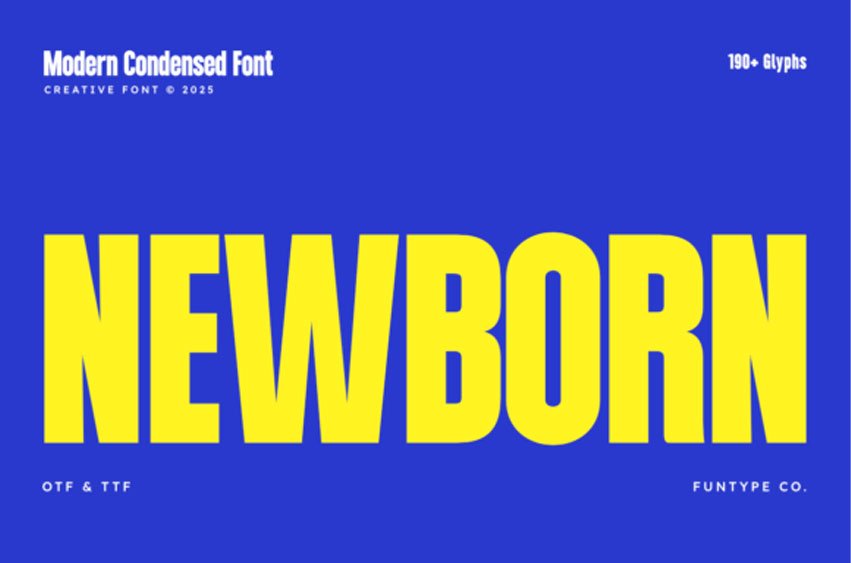
Newborn Font
Newborn Font is a bold, high-impact modern condensed sans serif display font designed for maximum visibility and a clean, contemporary aesthetic. Its solid, narrow letterforms and powerful structure make it an exceptional choice for dominant headlines, professional branding, athletic apparel, social media graphics, and large-scale poster designs.
This versatile typeface ensures your message is delivered with confidence and clarity, providing a sleek yet authoritative look that is perfect for any modern creative project.